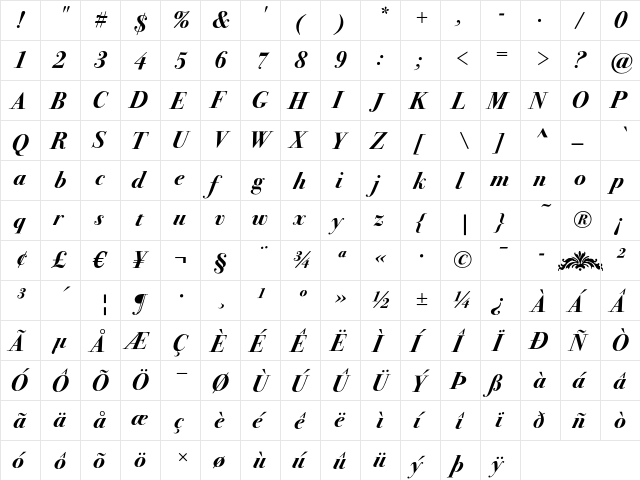
Bodoni Seventytwo ITC Bold Italic
Design Context for Bodoni Seventytwo ITC Typeface
Bodoni Seventytwo ITC takes a measured approach to typography — its balanced proportions and neutral character make it a reliable workhorse for both digital and print work. The slanted form adds forward momentum and visual energy. The heavy weight commands attention and anchors typographic hierarchies.
Pro Tip: Use Bodoni Seventytwo ITC for emphasis, pull quotes, and subheadings where its slanted energy can add rhythm to the layout.